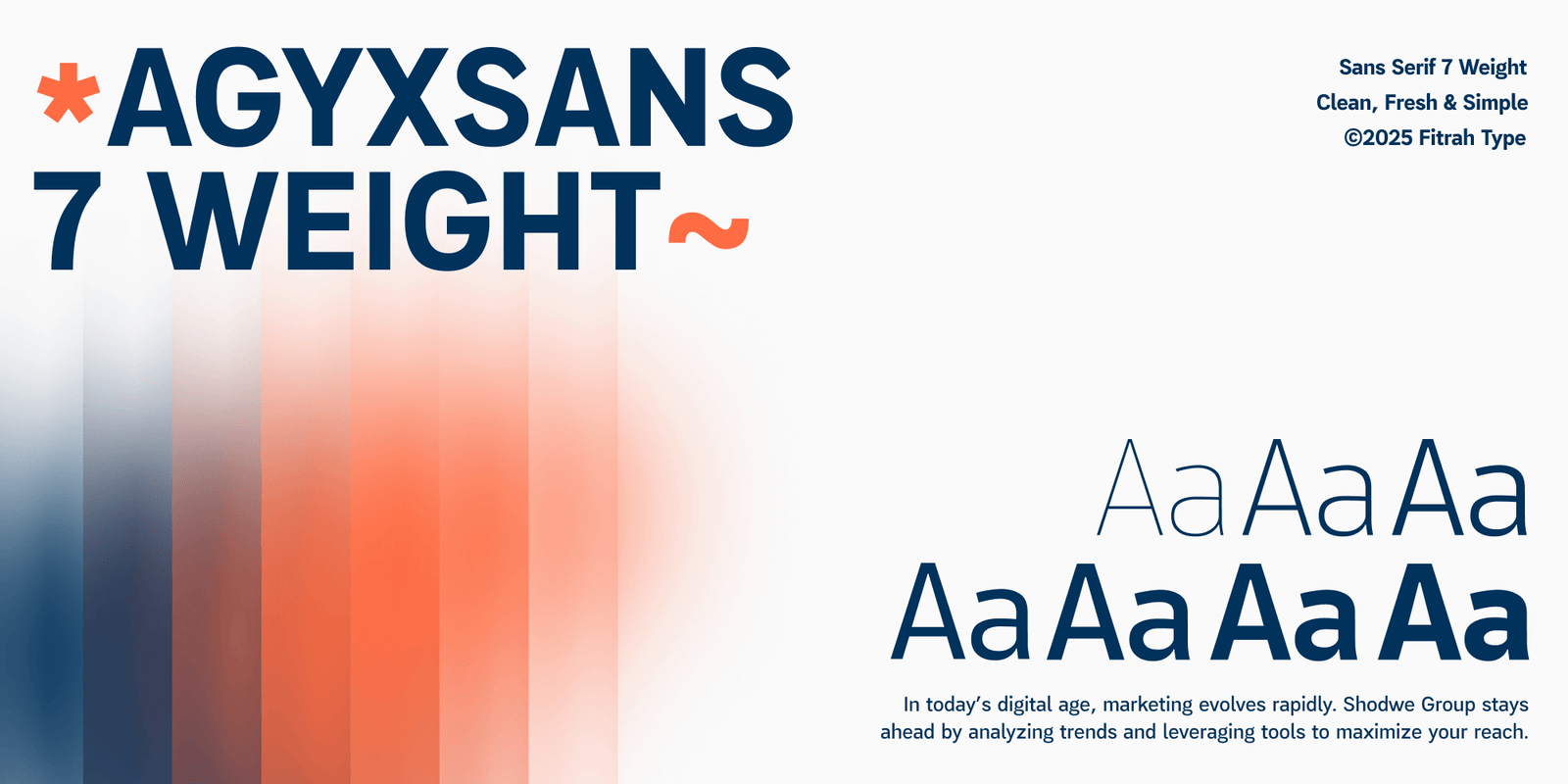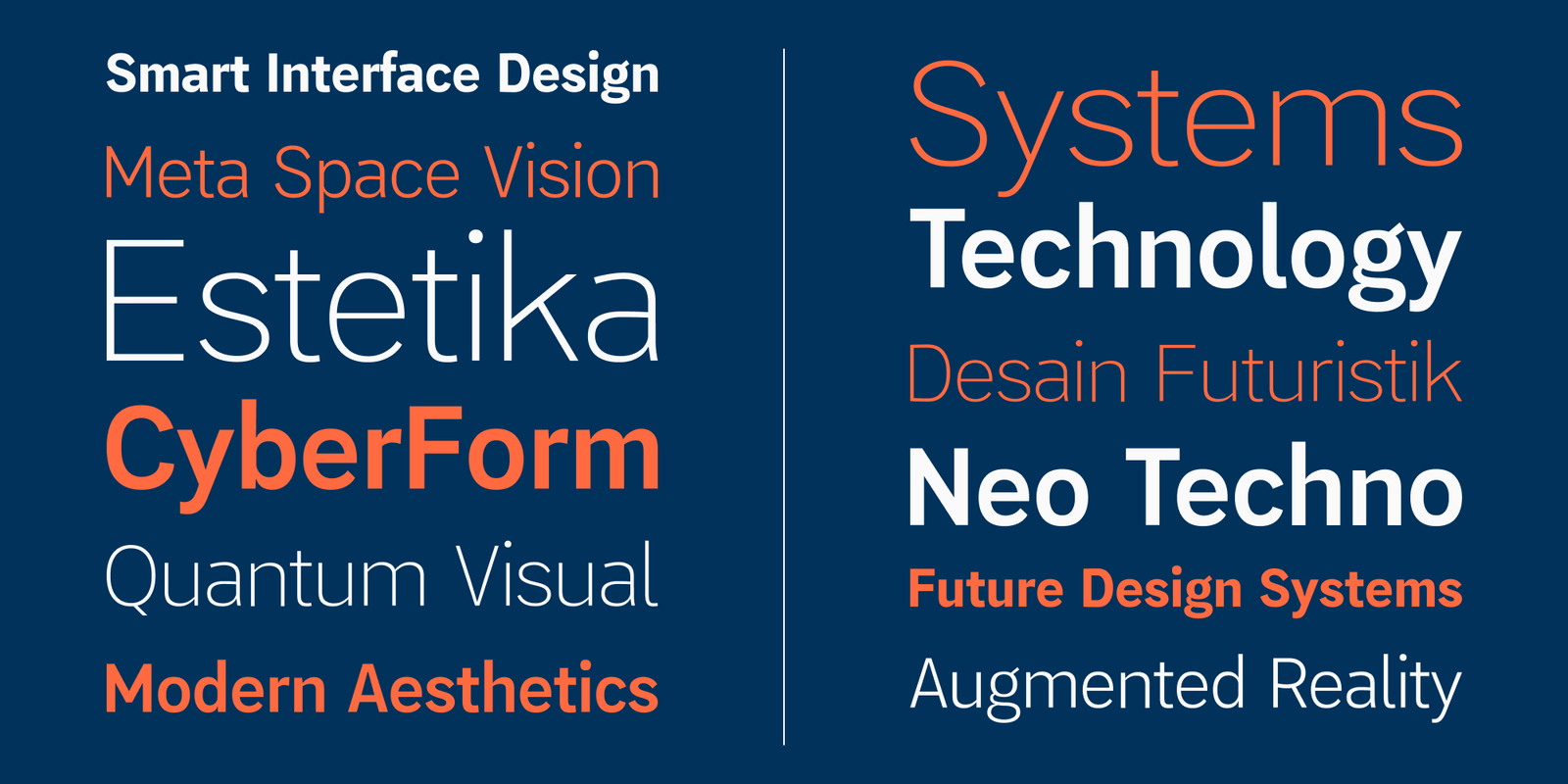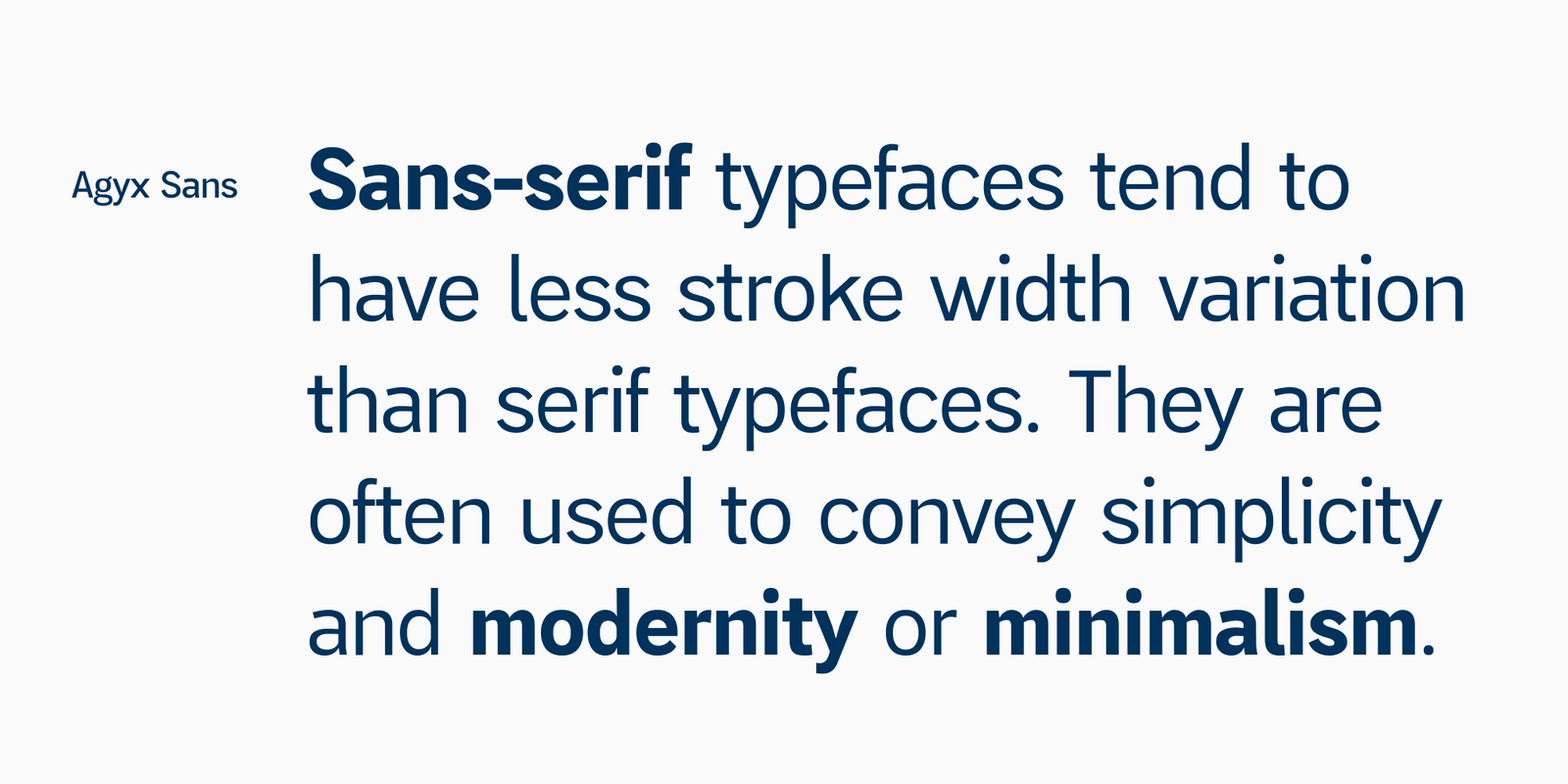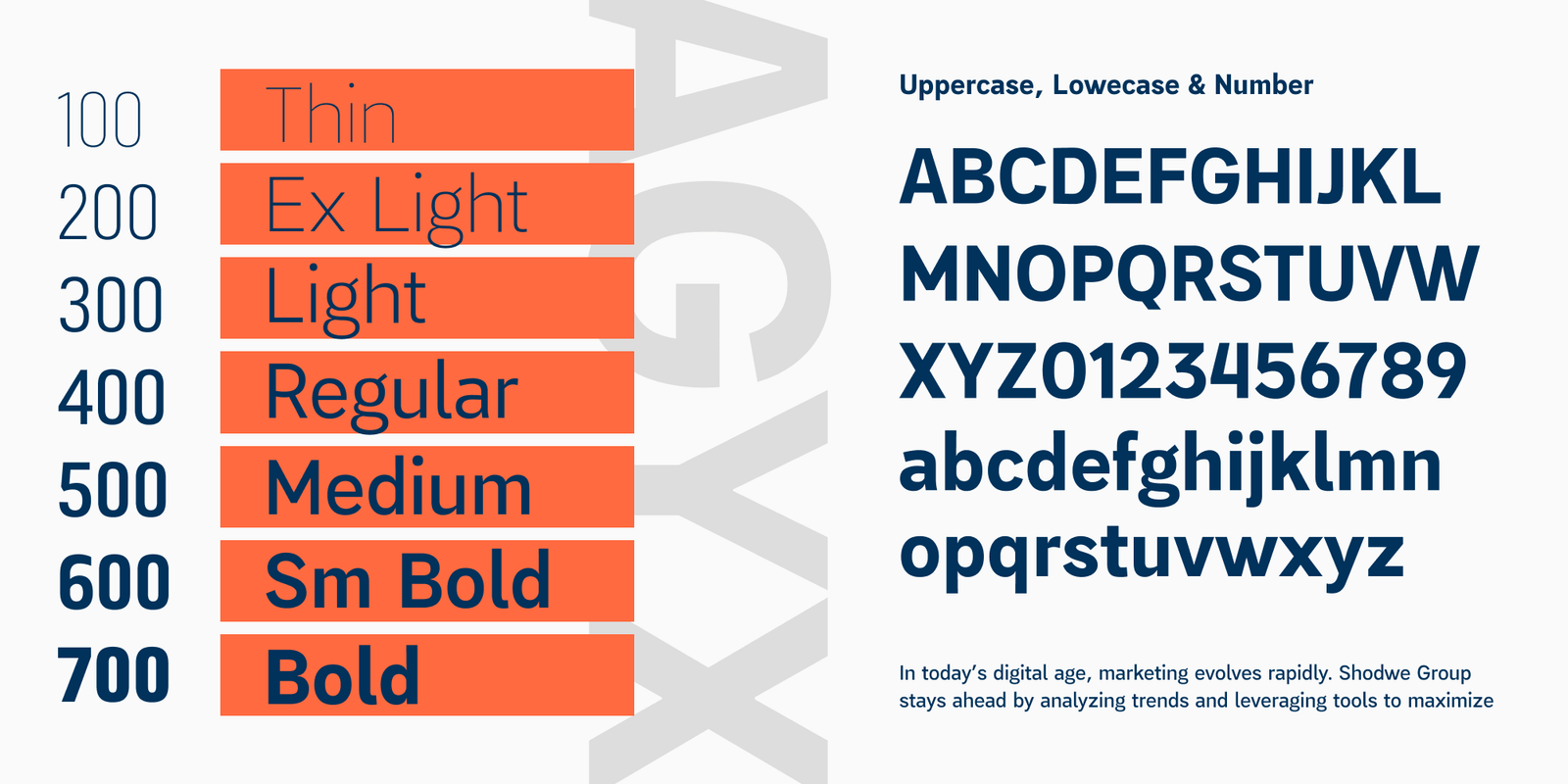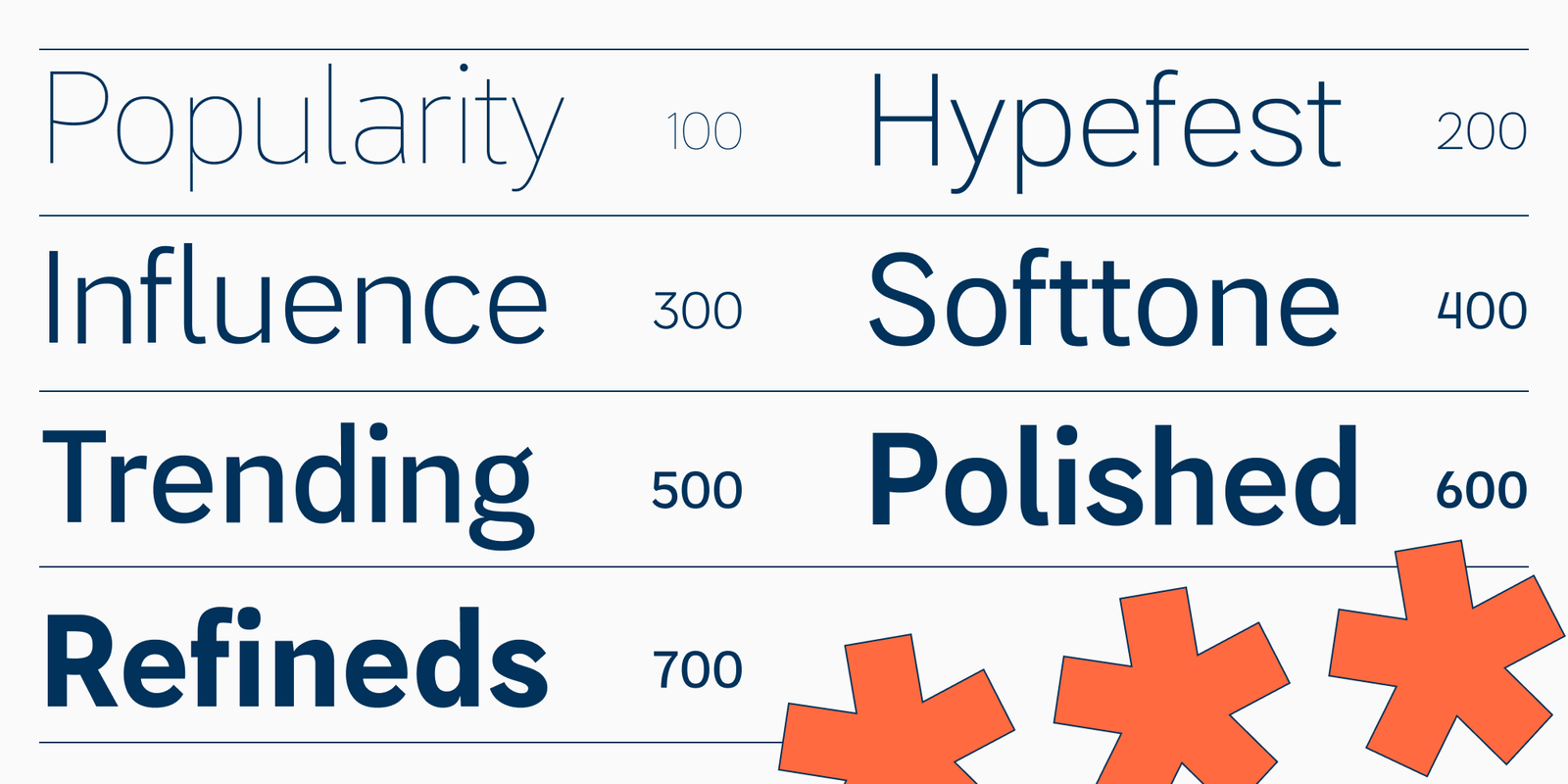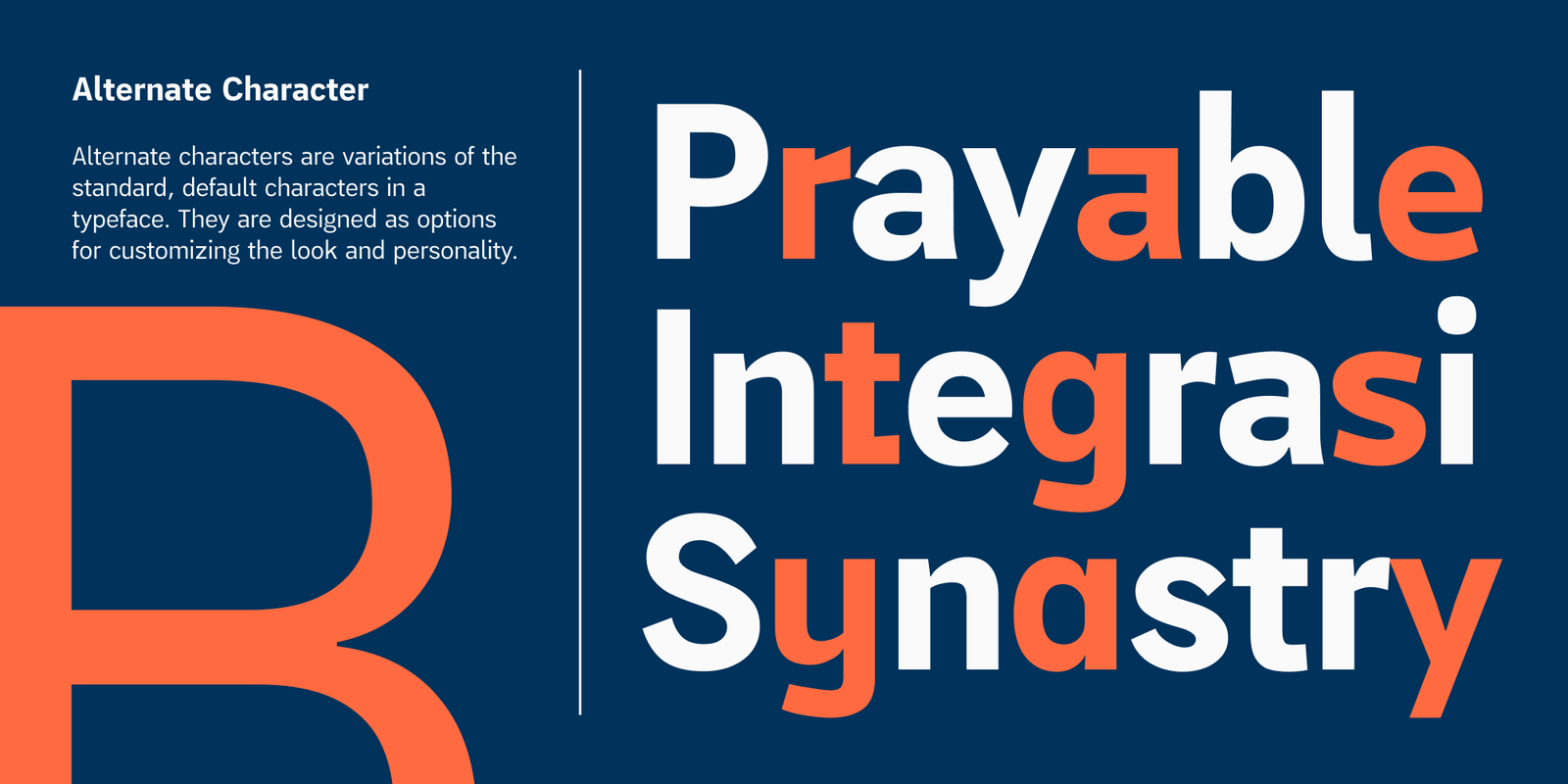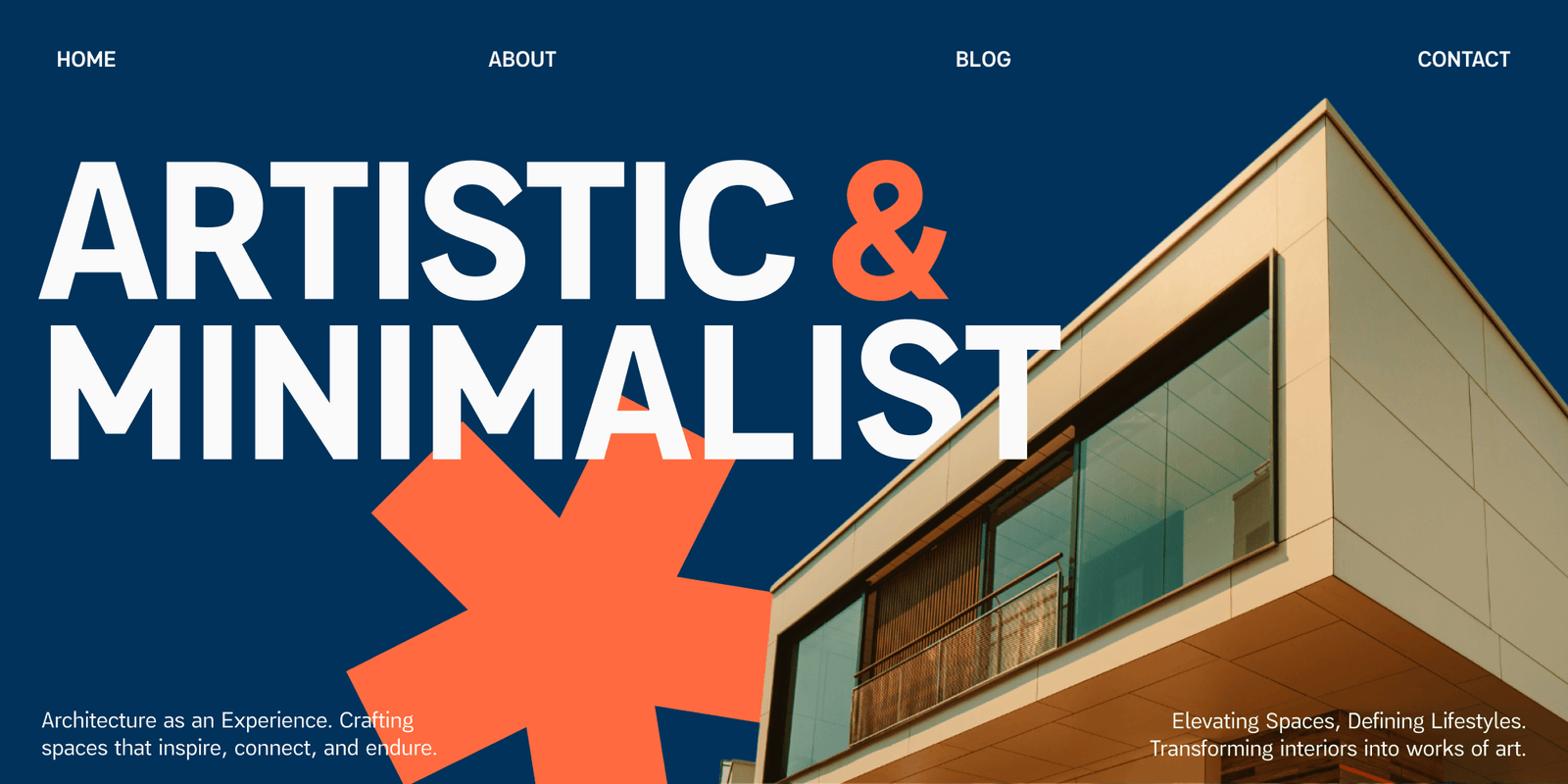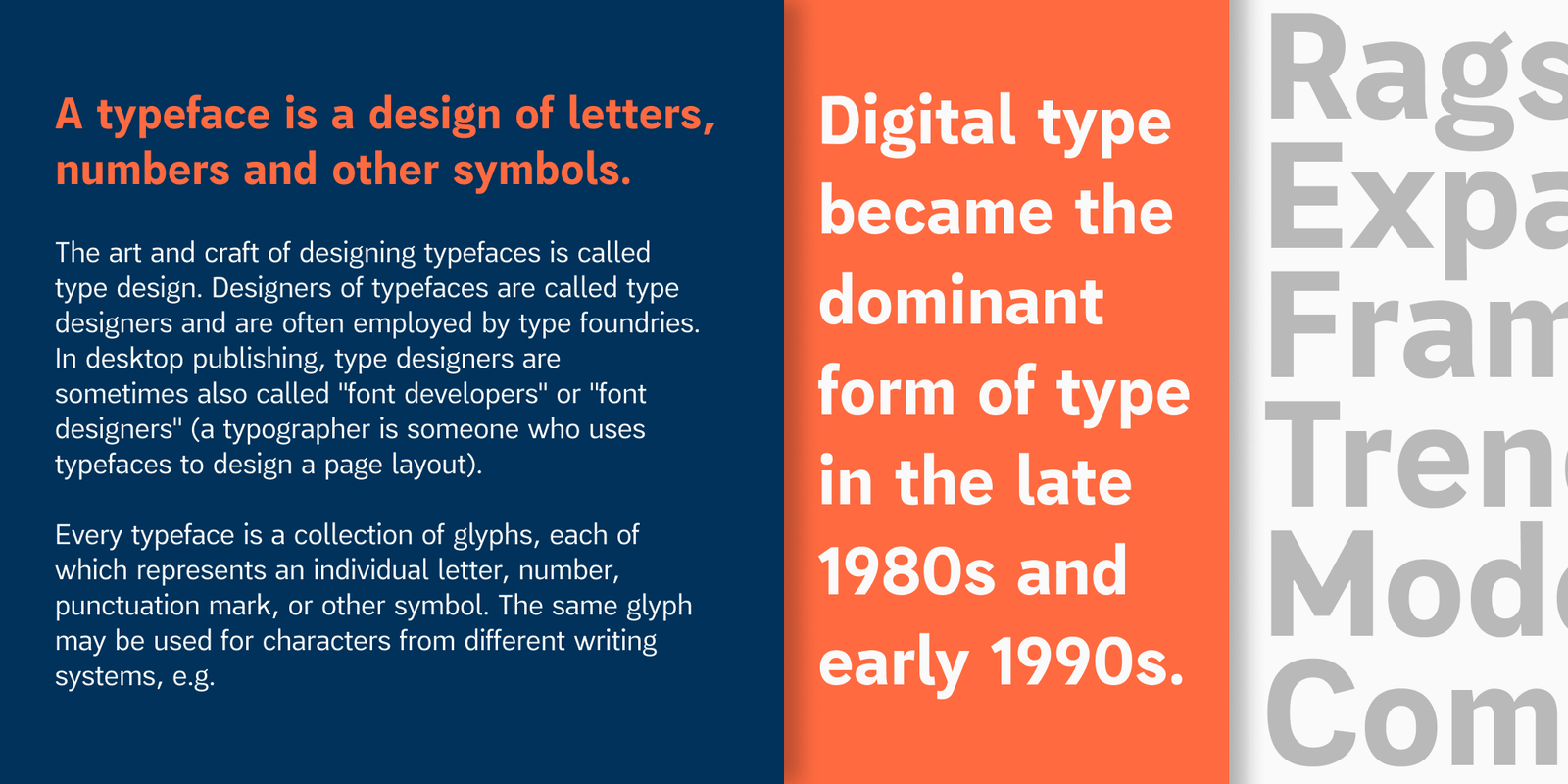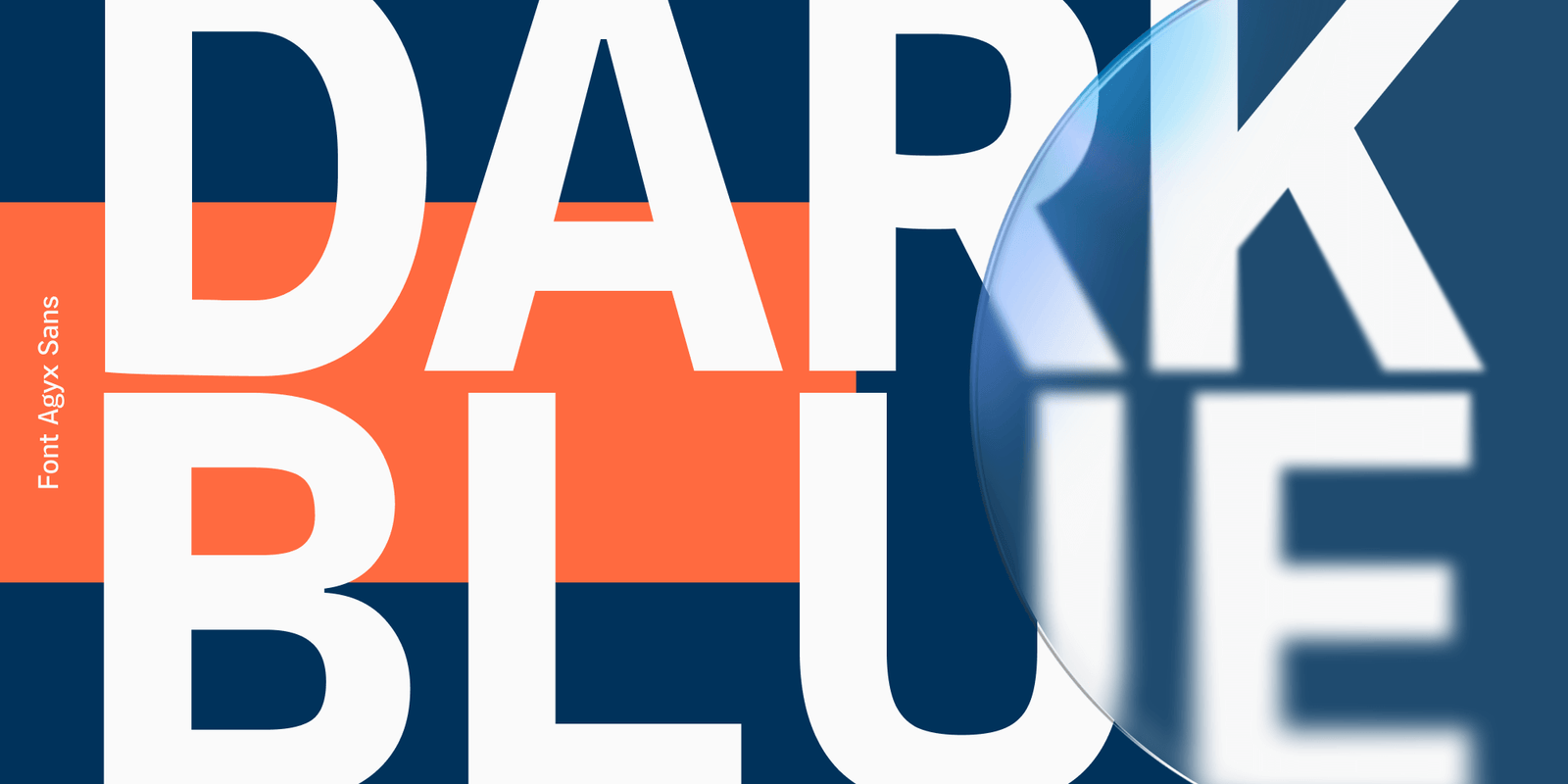
Agyx Sans
About Agyx Sans Font Family
Agyx Sans is a contemporary sans-serif typeface characterized by its precision and simplicity. With meticulously balanced letterforms and a streamlined structure, it showcases a modern aesthetic ideal for various design applications, including branding, editorial projects, and digital interfaces.
The font combines sharp yet approachable features that enhance readability while maintaining a distinctive personality. Agyx Sans is an excellent option for designers who desire a professional appearance imbued with a modern flair, making it suitable for both corporate identities and creative endeavors.